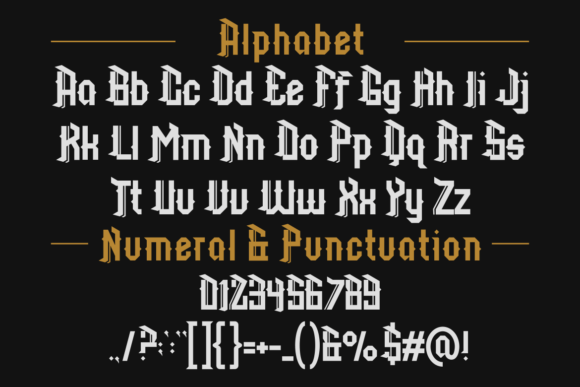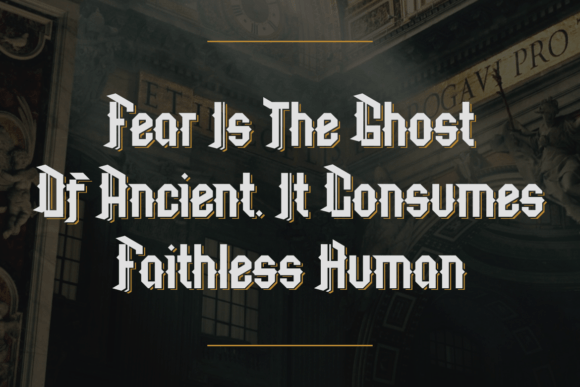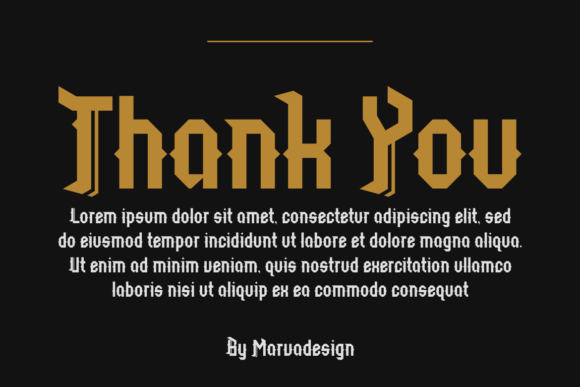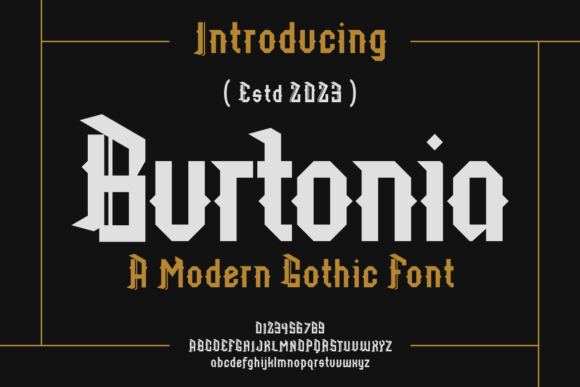
Introducing Burtonia Font: The Bold and Authentic Display Font for Your Branding Projects
In the world of typography, a font can make or break a design. When it comes to creating a lasting impression, you need a font that is not only visually appealing but also authentic and bold. This is where Burtonia Font comes in – a stunning display font that is perfect for any branding project. Whether you’re looking to create a logo, design a t-shirt, or develop a product, Burtonia Font is the ideal choice.
What Makes Burtonia Font Stand Out?
Burtonia Font is a bold and authentic display font that is designed to make a statement. Its unique and eye-catching design makes it perfect for a wide range of contexts, from advertising and marketing materials to product packaging and branding. The font’s bold and confident style ensures that your message is conveyed effectively, grabbing the attention of your audience and leaving a lasting impression.
Key Features of Burtonia Font
• Bold and Authentic Design: Burtonia Font boasts a bold and authentic design that is sure to turn heads.
• Versatile: The font is suitable for a wide range of contexts, including logos, t-shirt printing, product design, and more.
• Easy to Read: Despite its bold design, Burtonia Font is easy to read, making it perfect for use in a variety of applications.
• High-Quality: The font is designed to deliver high-quality results, ensuring that your branding projects look professional and polished.
Why Choose Burtonia Font for Your Branding Projects?
When it comes to selecting a font for your branding projects, there are many options to choose from. However, Burtonia Font stands out from the rest due to its unique and authentic design. Here are just a few reasons why you should choose Burtonia Font for your next project:
• Make a Lasting Impression: With Burtonia Font, you can create a lasting impression on your audience. The font’s bold and confident design ensures that your message is conveyed effectively.
• Stand Out from the Crowd: In a world where competition is fierce, it’s essential to stand out from the crowd. Burtonia Font helps you do just that, with its unique and eye-catching design.
• Perfect for a Wide Range of Contexts: Whether you’re designing a logo, t-shirt, or product, Burtonia Font is the perfect choice. Its versatility ensures that it can be used in a variety of applications.
How to Use Burtonia Font in Your Design Projects
Using Burtonia Font in your design projects is easy. Here are just a few tips to get you started:
• Pair it with Other Fonts: Burtonia Font can be paired with other fonts to create a unique and visually appealing design.
• Experiment with Different Sizes: The font looks great in a variety of sizes, from large and bold to small and subtle.
• Use it for Headings and Titles: Burtonia Font is perfect for use in headings and titles, where its bold and confident design can make a lasting impression.
In conclusion, Burtonia Font is a bold and authentic display font that is perfect for any branding project. Its unique and eye-catching design makes it suitable for a wide range of contexts, from logos and t-shirt printing to product design and more. With its versatility, ease of use, and high-quality design, Burtonia Font is the ideal choice for designers and crafters looking to make a lasting impression.